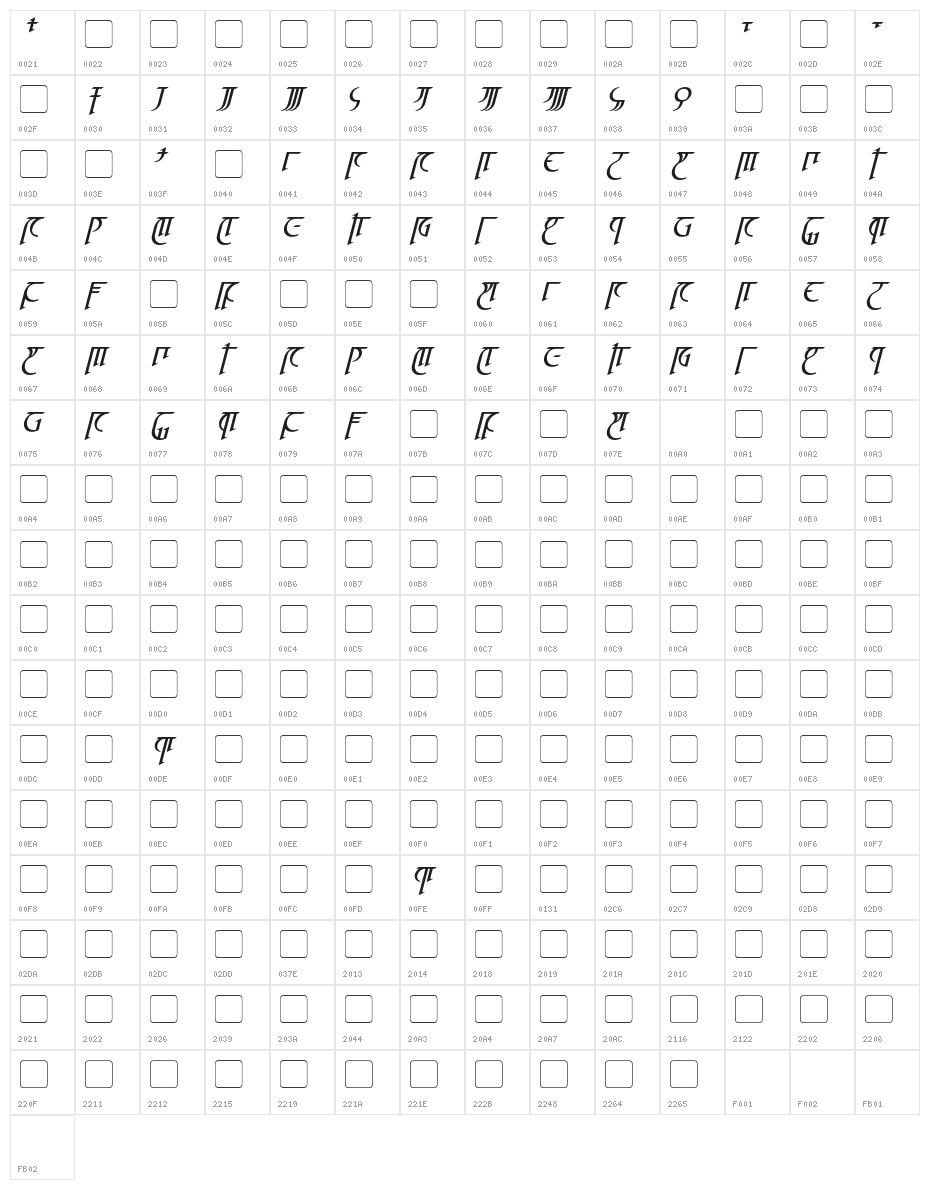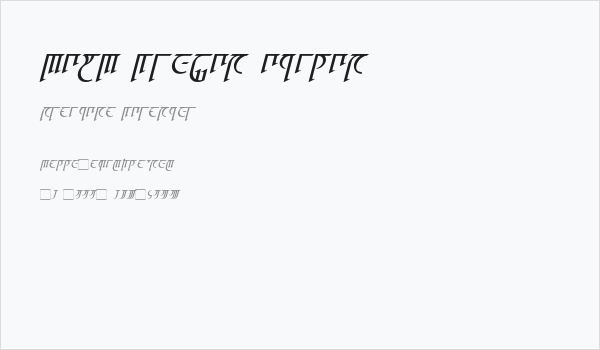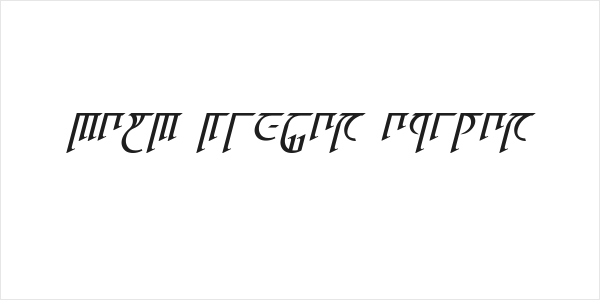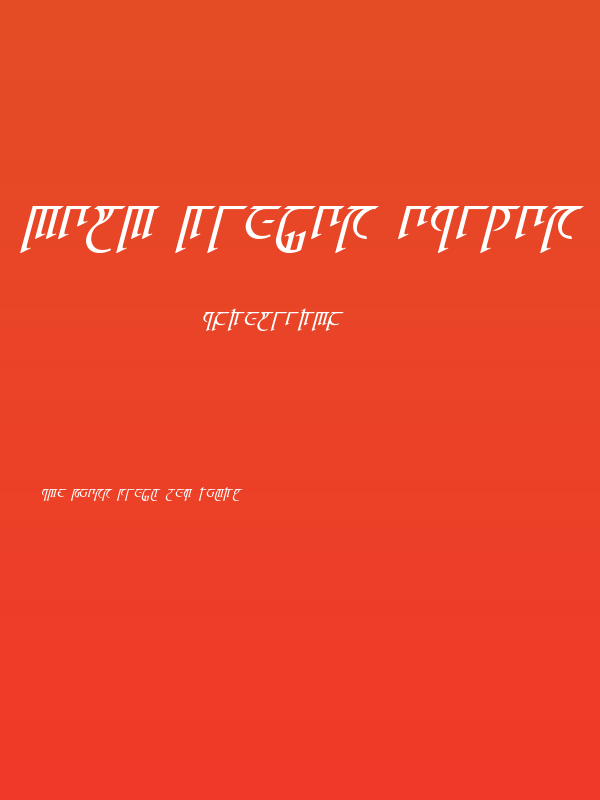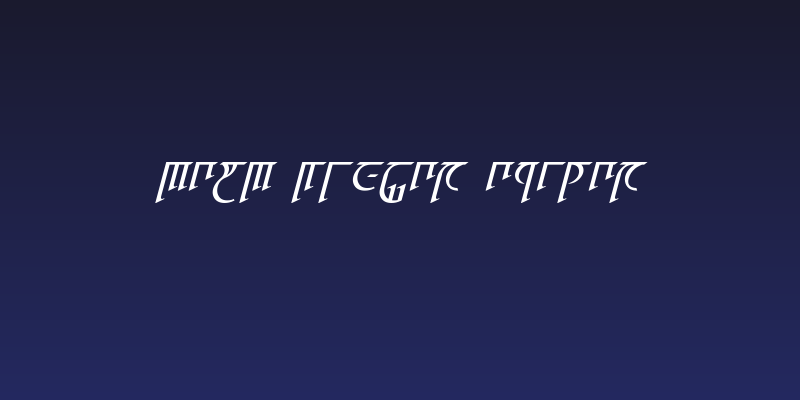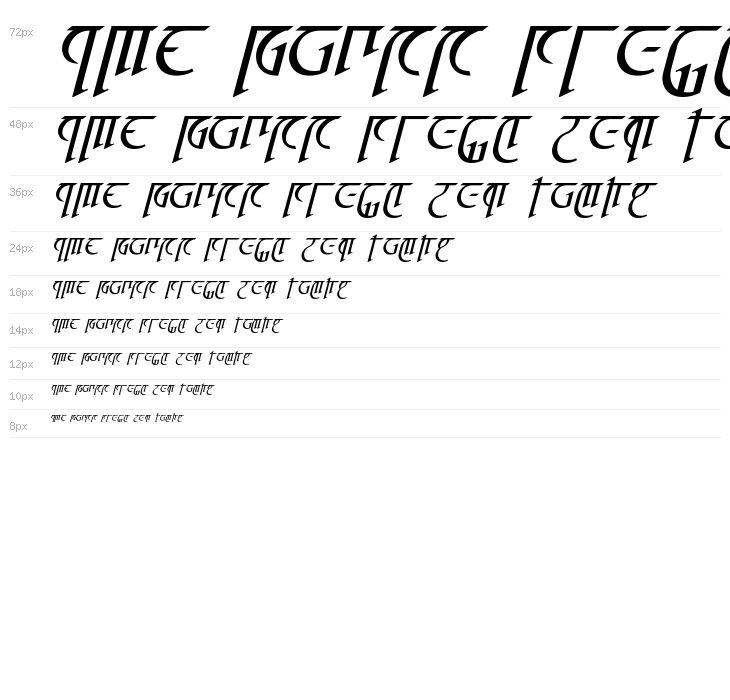
High Drowic Italic Font
High Drowic Italic Description
This font features a unique, angular design with sharp, elongated strokes that give it a futuristic and dynamic appearance. The characters are italicized, adding a sense of motion and fluidity. The overall style is reminiscent of calligraphic scripts but with a modern twist, incorporating elements that suggest speed and agility. The uppercase and lowercase letters maintain a consistent style, with each character exhibiting a distinct, stylized form. The numbers and special characters follow the same design principles, ensuring uniformity across the font set. This font is particularly striking due to its high contrast between thick and thin strokes, which enhances its visual impact.
| Overall Style | Futuristic, Dynamic |
| Proposed Projects | Ideal for sci-fi themed projects, video game titles, futuristic branding, and dynamic posters. |